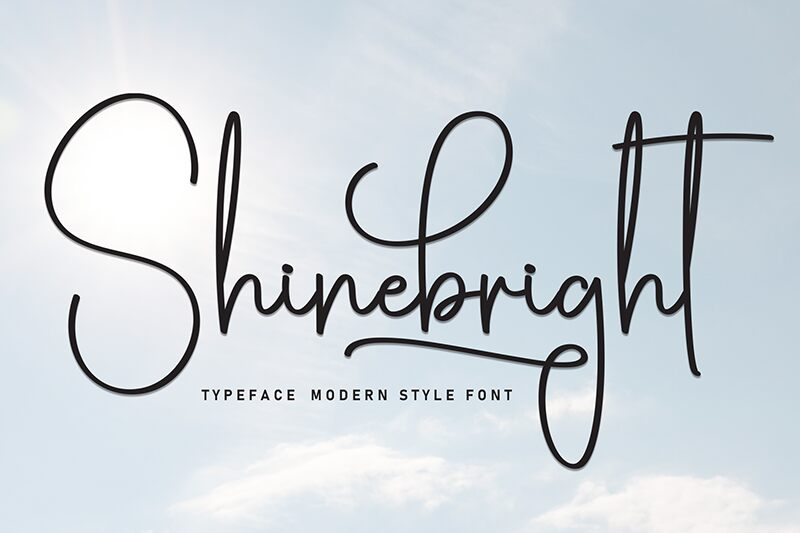
Shinebright
Shinebright font by Scratchones is an elegant handwritten light font with a relaxed flowing style. It combines casual elegance with a modern aesthetic, and it has an approachable feel that readers simply love. This dazzling majestic font will compliment all your headlines, subheadings, and paragraph text within your design.
The use cases are endless so experiment with wedding invitations, digital signage, business cards, logo design projects, social media content posts, apparel printing designs like T-shirts or caps, and letterheads. Book covers would look awesome in this font as well as greeting cards of all kinds.